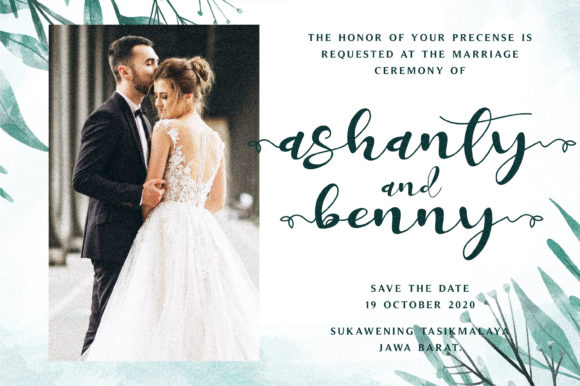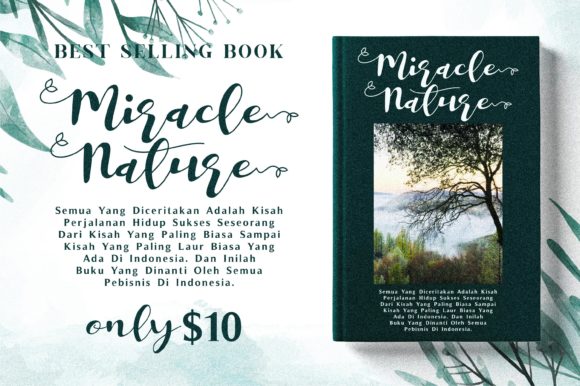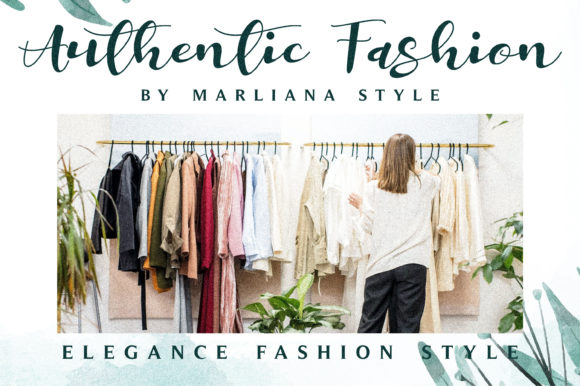
Introduction to Miracle Nature Font
Miracle Nature feels equally charming and elegant.
It looks stunning on wedding invitations, thank you cards, quotes, greeting cards, logos, business cards and every other design which needs a handwritten touch This font is PUA encoded which means you can access all of the glyphs and swashes with ease.
Key Features of Miracle Nature Font